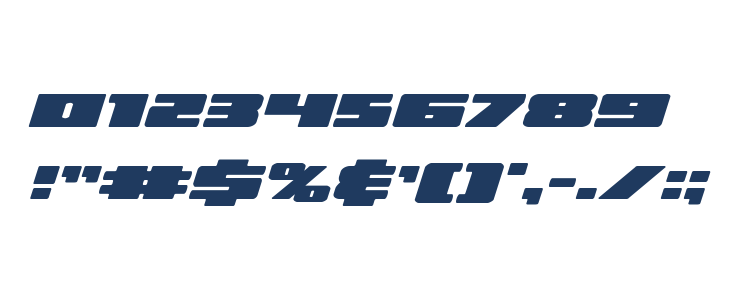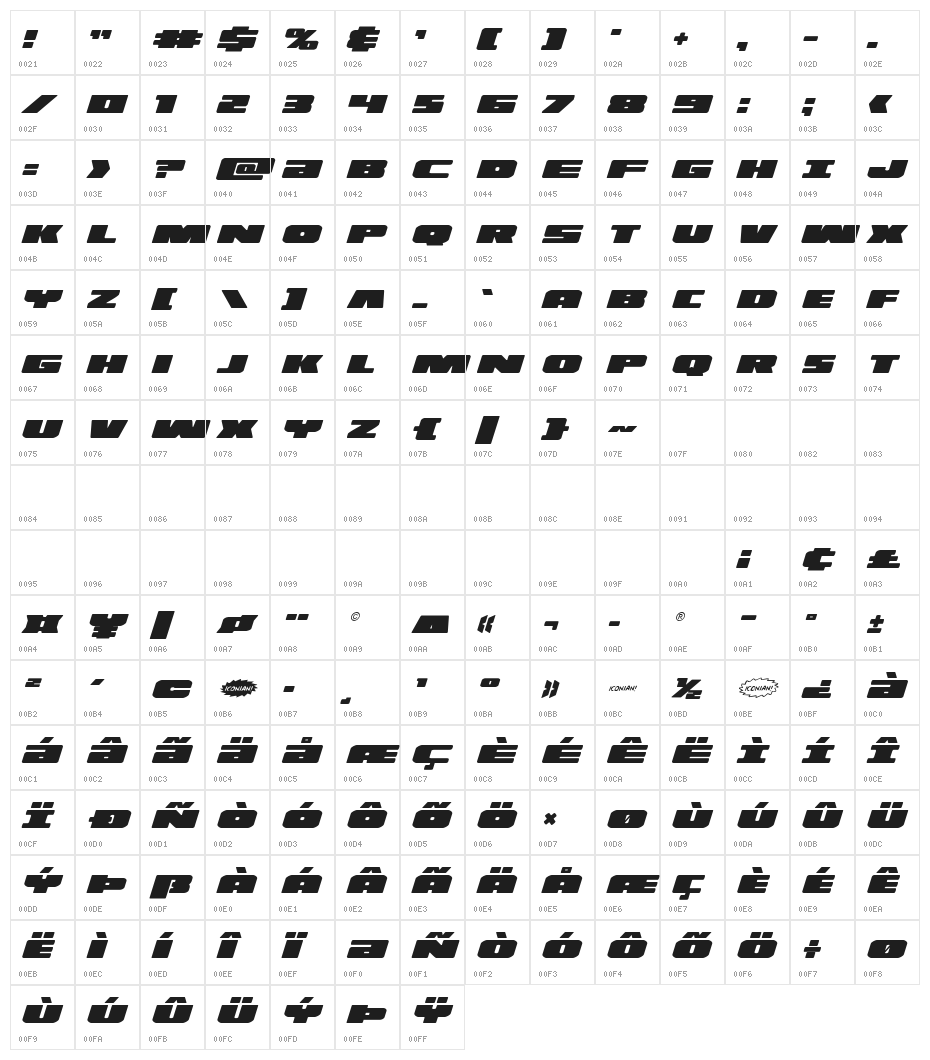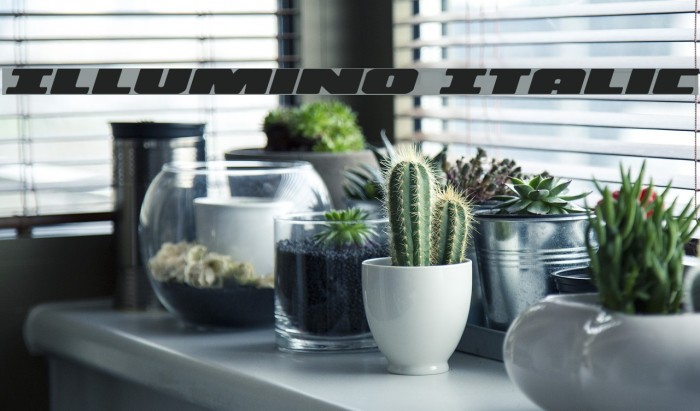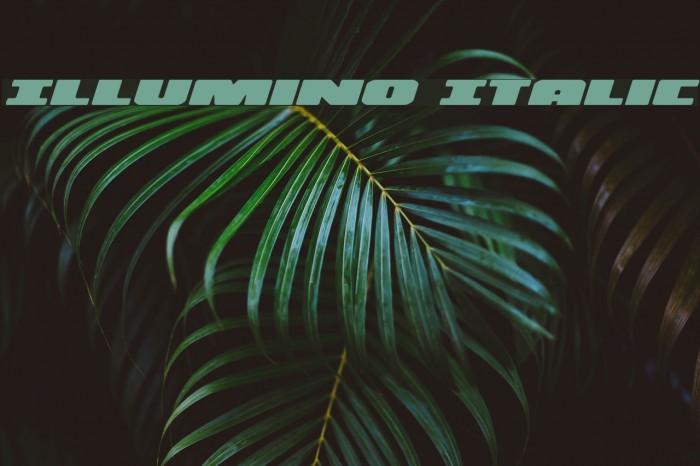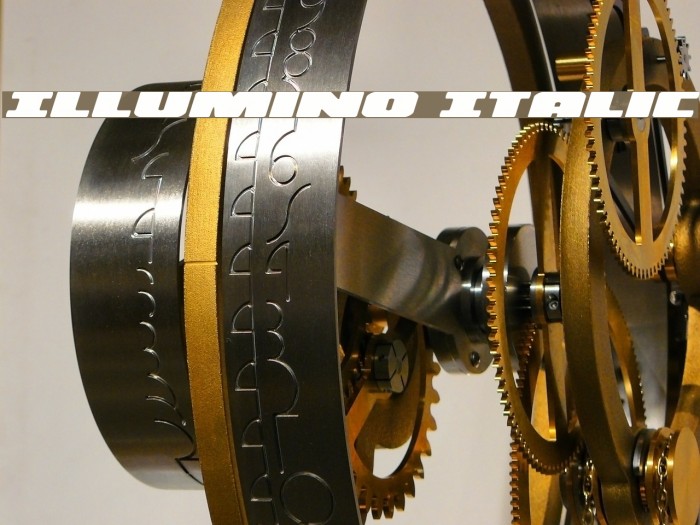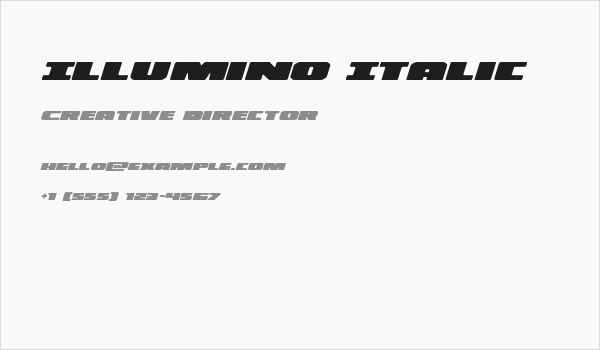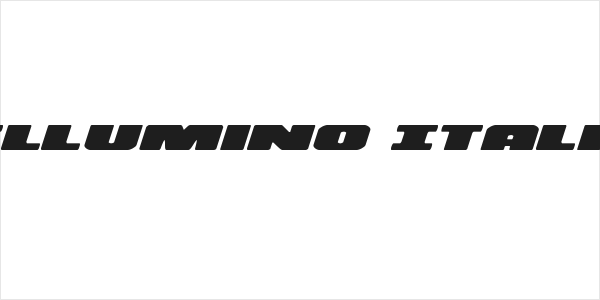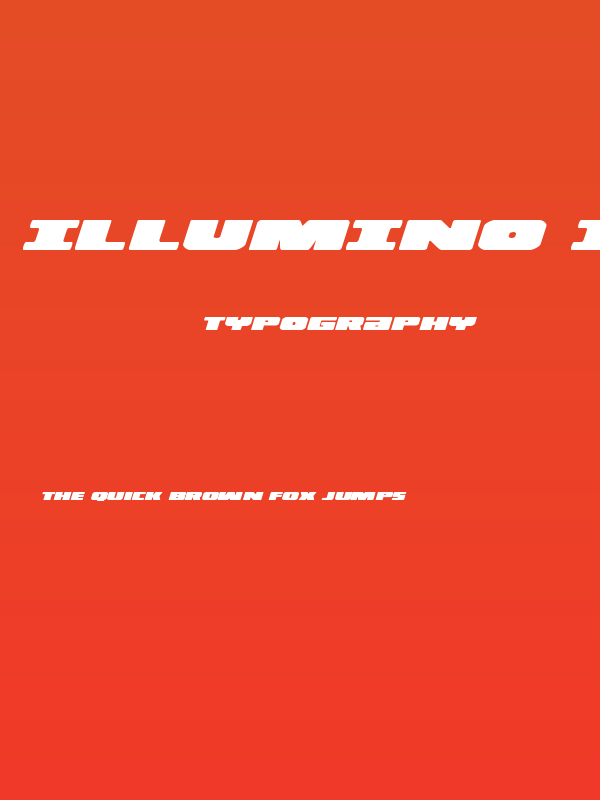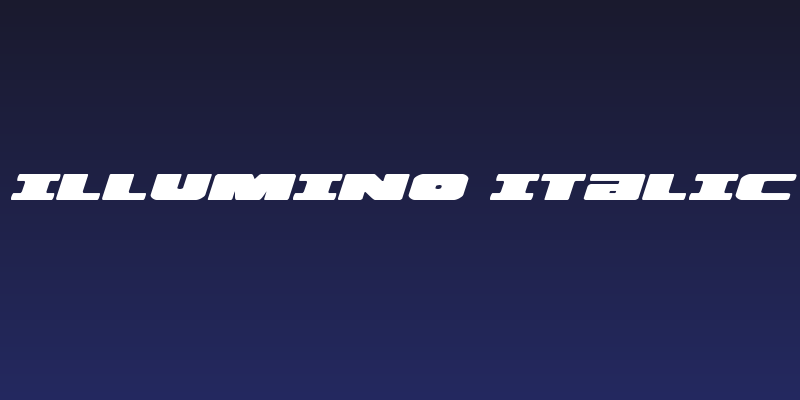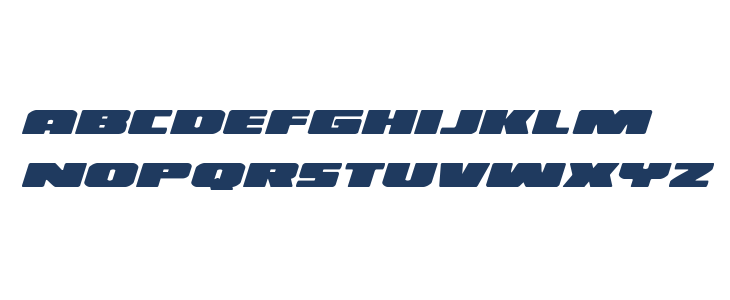
Illumino Italic Font
Illumino Italic Description
This font features a bold and dynamic style with a strong italic slant, giving it a sense of motion and energy. The characters are wide and blocky, with a futuristic and industrial feel. The uppercase letters are particularly striking, with sharp angles and a consistent stroke width that conveys strength and stability. The lowercase letters maintain the same boldness, ensuring readability while adding a touch of uniqueness. The numerals are equally robust, matching the overall aesthetic of the font. Special characters are designed with the same attention to detail, making them seamlessly integrate with the rest of the typeface.
| Proposed Projects | Ideal for projects requiring a strong, modern look such as technology branding, sports team logos, or dynamic advertising campaigns. |